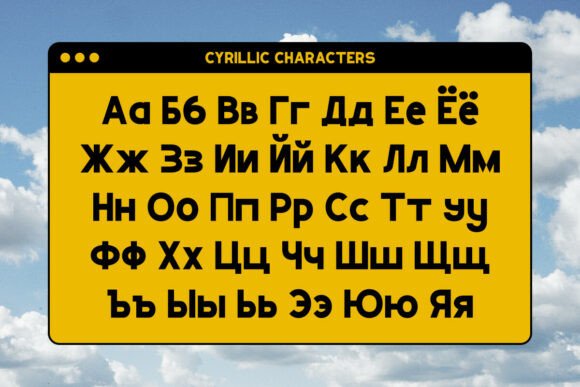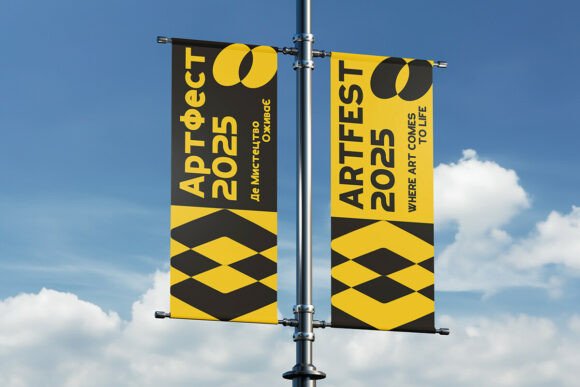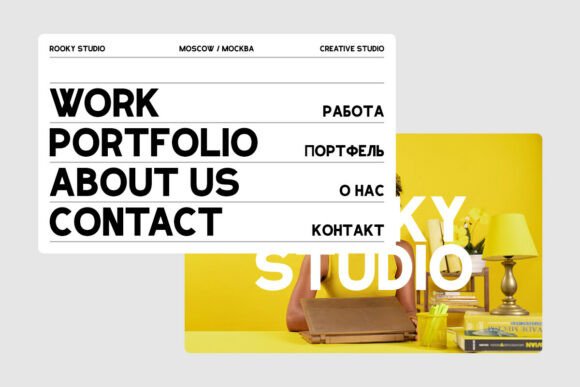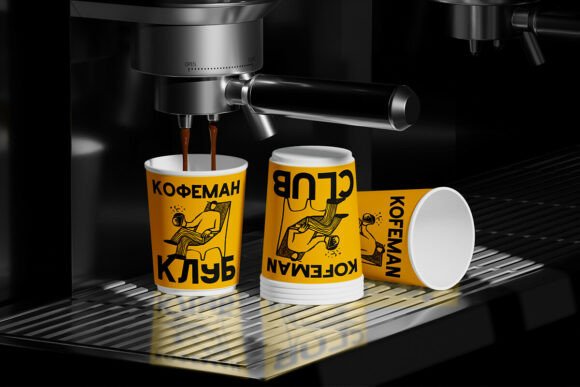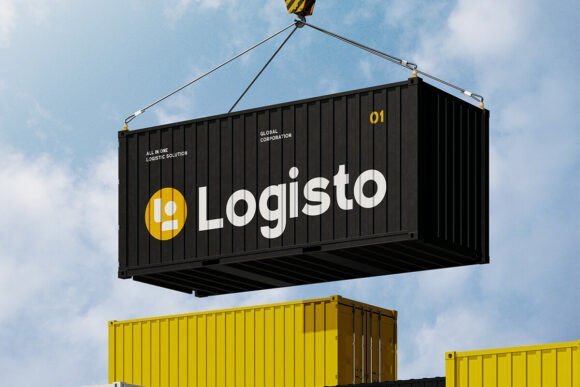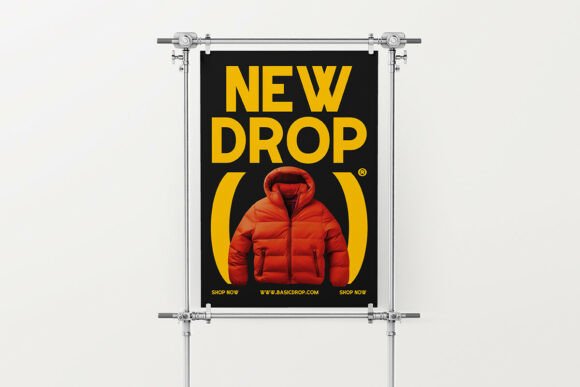
Introduction to Libertas Font
Imagine you’re brainstorming ideas for your next creative project, and you stumble upon the perfect font that makes your message stand out. For designers, finding the right font can be the difference between a project that falls flat and one that makes a lasting impression. That’s exactly what the Libertas Font offers – a heavyweight sans serif that commands attention and leaves a lasting impact.
| 👤 Author | Vadova Std |
Released in 2025, the Libertas Font features ultra-thick strokes and tight tracking, creating a powerful block-like texture that’s ideal for headlines, posters, and streetwear branding. With a robust Cyrillic set, designers can now unleash this “Bold Sans” energy in new territories without compromising its core values. Whether you’re working on a high-quality design resource or simply need a reliable font for a free download, Libertas Font is an invaluable addition to any designer’s toolkit.
- Unique characteristic: a modern, clean design with a touch of elegance, making it perfect for corporate and creative projects.
Honest Review: Libertas Font
I recently had the chance to experiment with the Libertas Font for a creative project and I must say, it’s been a great addition to my design resource library.
One of the standout features of the Libertas Font is its high quality and clean design. The font is perfect for creating visually appealing and modern-looking text elements. I love how it can be paired with a transparent background to really make the text stand out.
Here are some of the things that work well with the Libertas Font:
- ✨ Great for headings and titles due to its bold and modern design
- ✨ Can be easily customized to fit various design styles
- ⚠️ Limited character set, which may not be suitable for complex text-based projects
- ⚠️ May not be as versatile as some other fonts in terms of font sizes and styles
Overall, I’m impressed with the Libertas Font and would recommend it to designers looking for a high-quality, modern font for their creative projects.
Getting the Most Out of Libertas Font
Common Use Cases for Libertas Font
Libertas Font is ideal for designing business cards, brochures, and other marketing materials. It’s also great for creating titles, headings, and body text for websites and social media platforms. With its high-quality design and free download, Libertas Font is a valuable resource for any creative project.